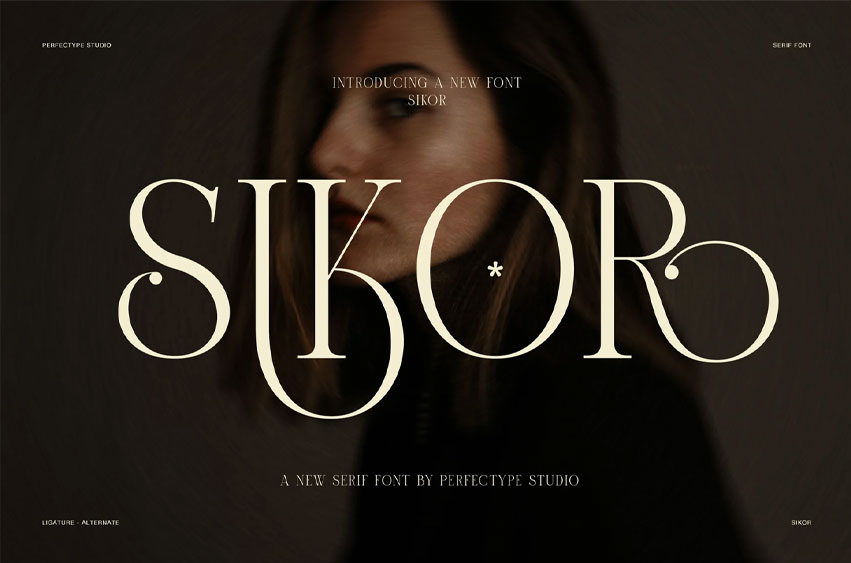
Sikor Font
Sikor Font is an elegant ligature serif font created for designers who appreciate graceful typography with a luxurious personality. Inspired by timeless editorial design, premium branding, and modern fashion aesthetics, this display typeface blends classic serif structure with flowing ligatures and refined alternate characters. As a result, every composition feels distinctive while remaining balanced and highly readable.
Each letterform is carefully designed with high-contrast strokes, delicate curves, and subtle decorative terminals. Moreover, the elegant swashes and stylish alternates add movement without sacrificing clarity. This thoughtful balance makes Sikor ideal for sophisticated visual identities that need both beauty and professionalism. Whether used for a logo or a large headline, the font immediately creates a premium impression.
Sikor performs beautifully across luxury branding, fashion campaigns, beauty products, boutique hotels, photography studios, furniture brands, interior design portfolios, cosmetic packaging, jewellery collections, and upscale restaurants. Furthermore, its refined appearance makes it perfect for magazines, invitations, social media graphics, websites, product packaging, and premium marketing materials.
The OpenType features include elegant ligatures and a generous collection of stylistic alternates. Therefore, designers can easily create unique wordmarks and custom typography without additional editing. Every combination feels natural, while each character preserves the refined character of the typeface.
• Elegant high-contrast serif design
• Beautiful flowing ligatures
• Decorative stylistic alternates
• Luxury branding typography
• Fashion-inspired display font
• Professional editorial appearance
• Perfect for premium logos
• Excellent for beauty and lifestyle brands
• Ideal for print and digital design
• Clean, timeless, and sophisticated letterforms
In addition, Sikor adapts effortlessly to both minimalist and luxurious layouts. The graceful curves bring personality to every design, while the structured proportions maintain excellent readability at display sizes. Consequently, it is suitable for creative professionals who want typography that feels exclusive yet versatile.
The complete package includes uppercase, lowercase, numbers, punctuation, multilingual support, OpenType ligatures, and stylish alternate glyphs. Consequently, designers receive a complete toolkit for building memorable visual identities across many industries.
If you are searching for an elegant ligature serif font that combines timeless elegance with modern creativity, Sikor is a refined choice. It helps transform ordinary typography into premium branding that captures attention, communicates quality, and leaves a lasting visual impression.